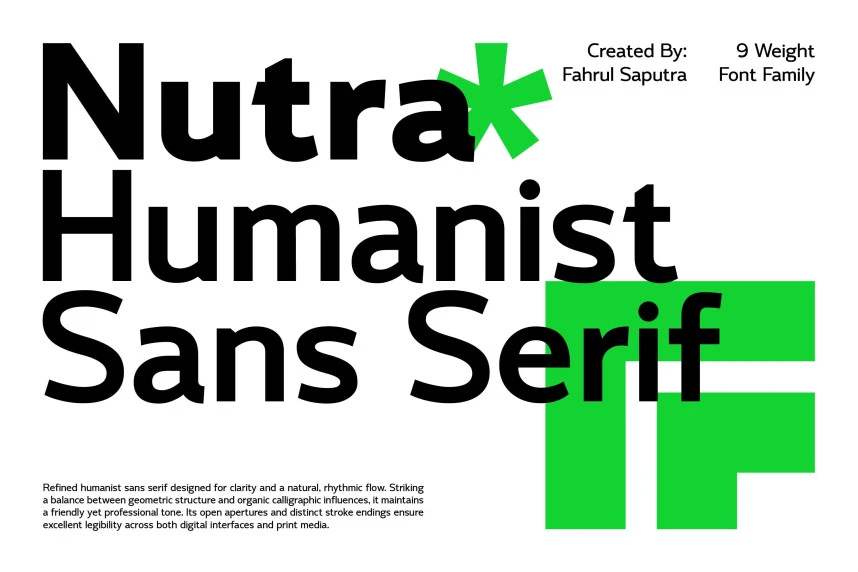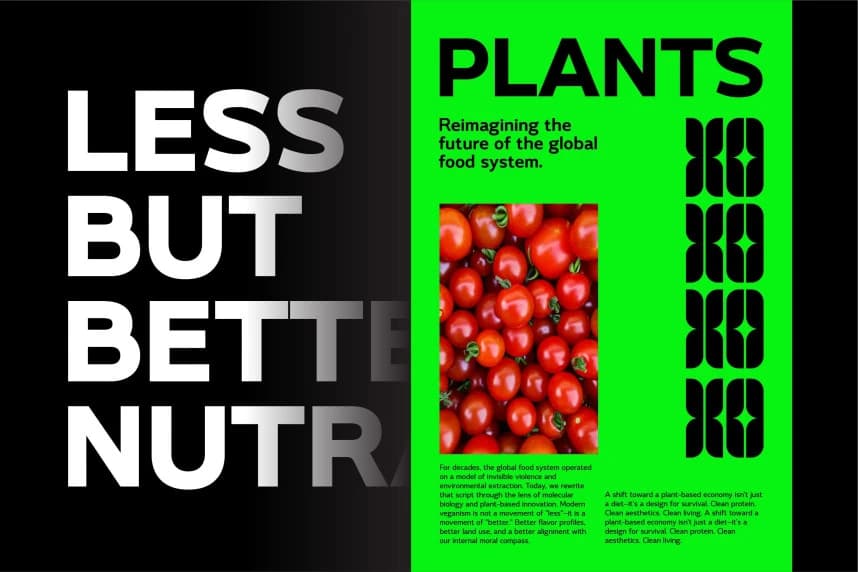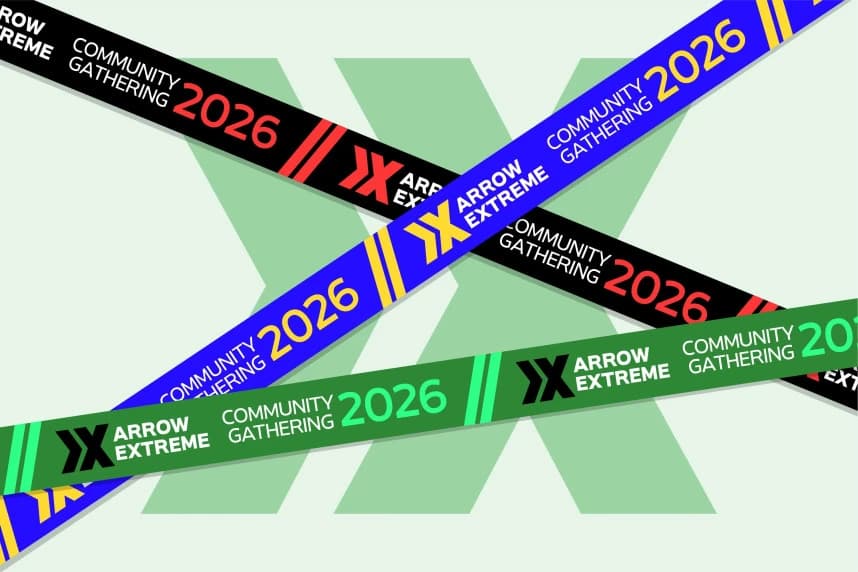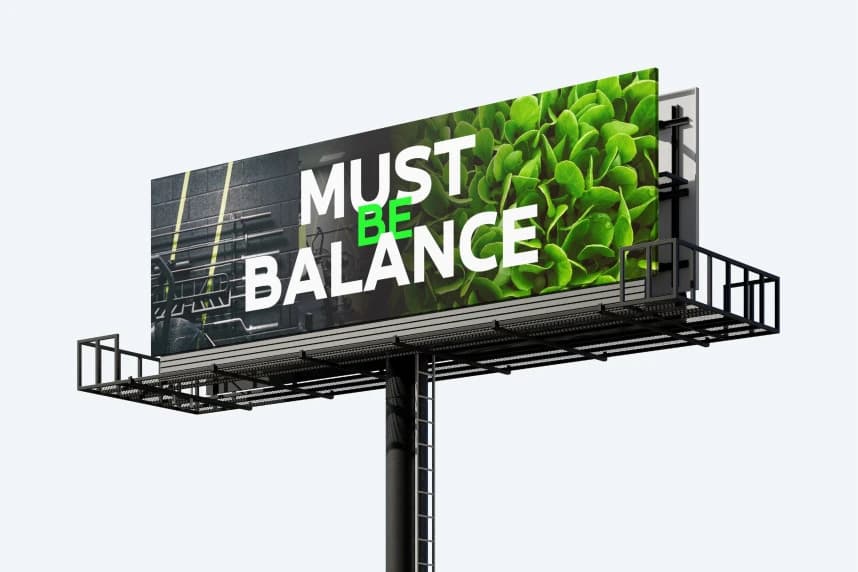
Nutra Font
Nutra Font - Refined humanist sans serif designed for clarity and a natural, rhythmic flow. Striking a balance between geometric structure and organic calligraphic influences, it maintains a friendly yet professional tone.